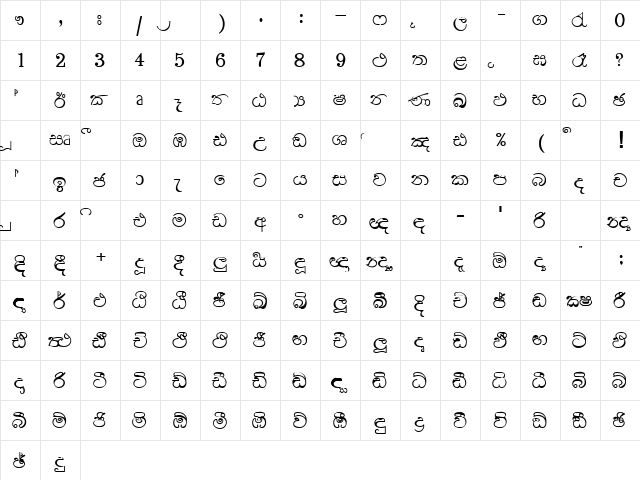
DL-Manel-bold.-x Normal
Design Context for DL-Manel-bold.-x Typeface
DL-Manel-bold.-x takes a measured approach to typography — its balanced proportions and neutral character make it a reliable workhorse for both digital and print work. Its bold stroke weight gives it real presence on the page.